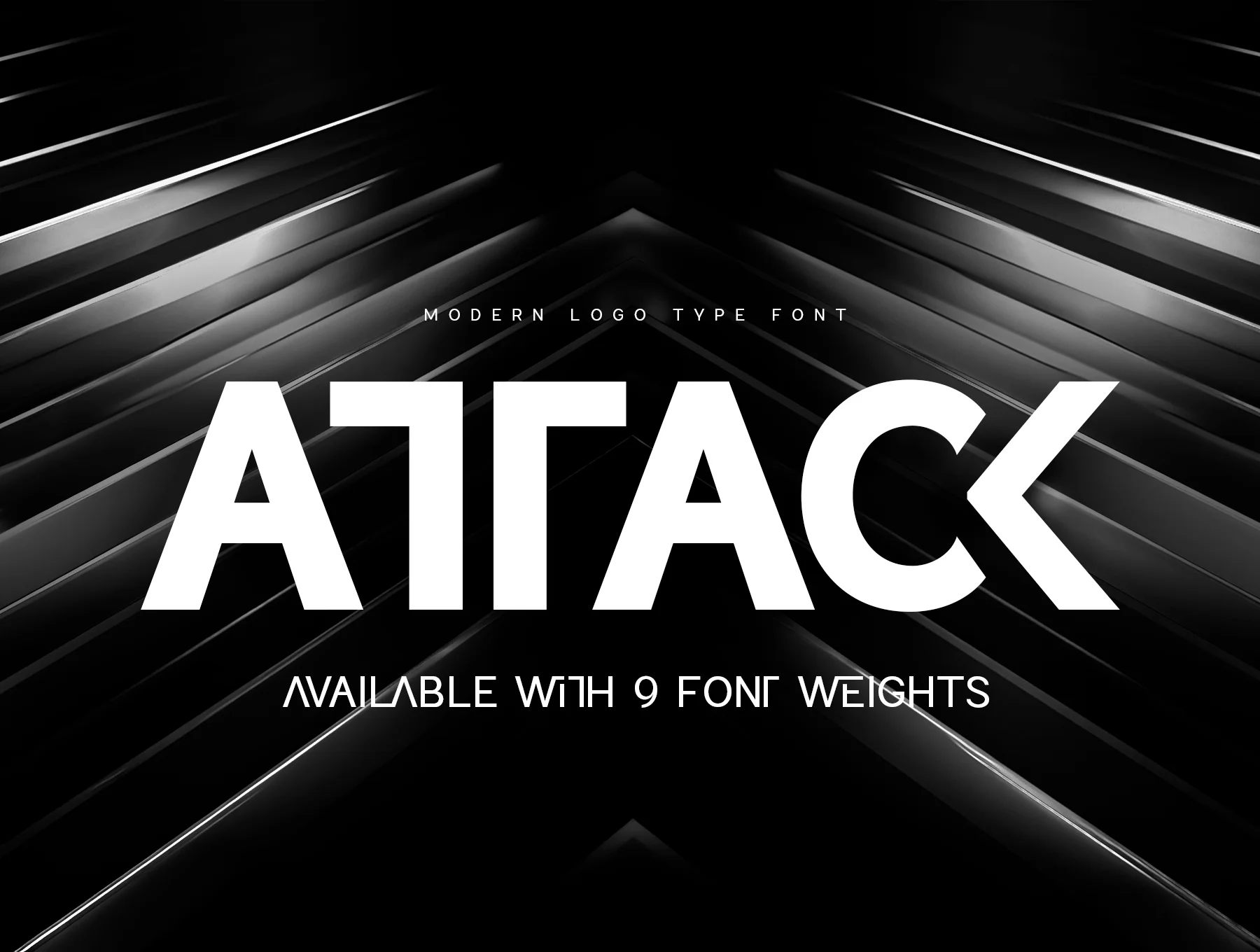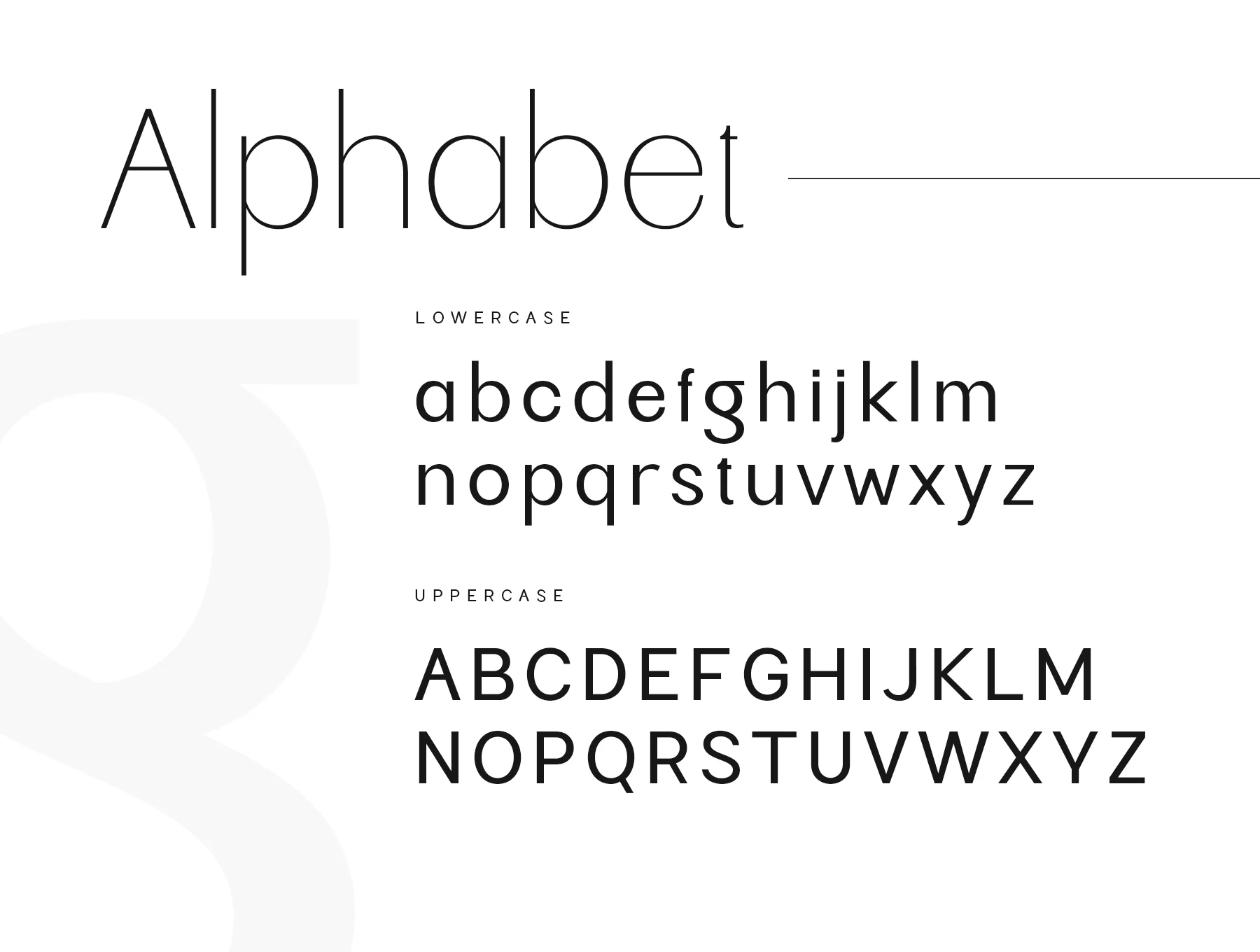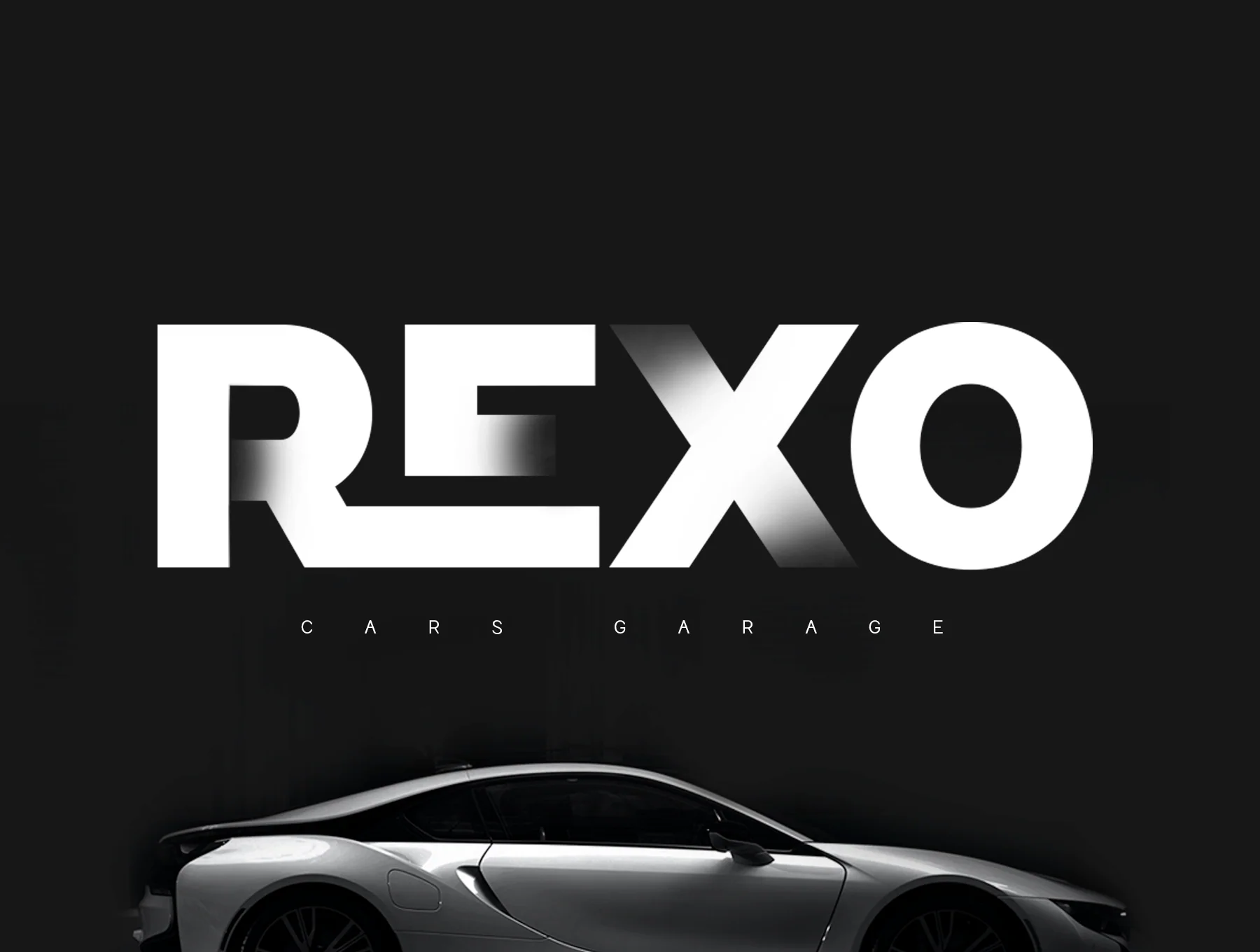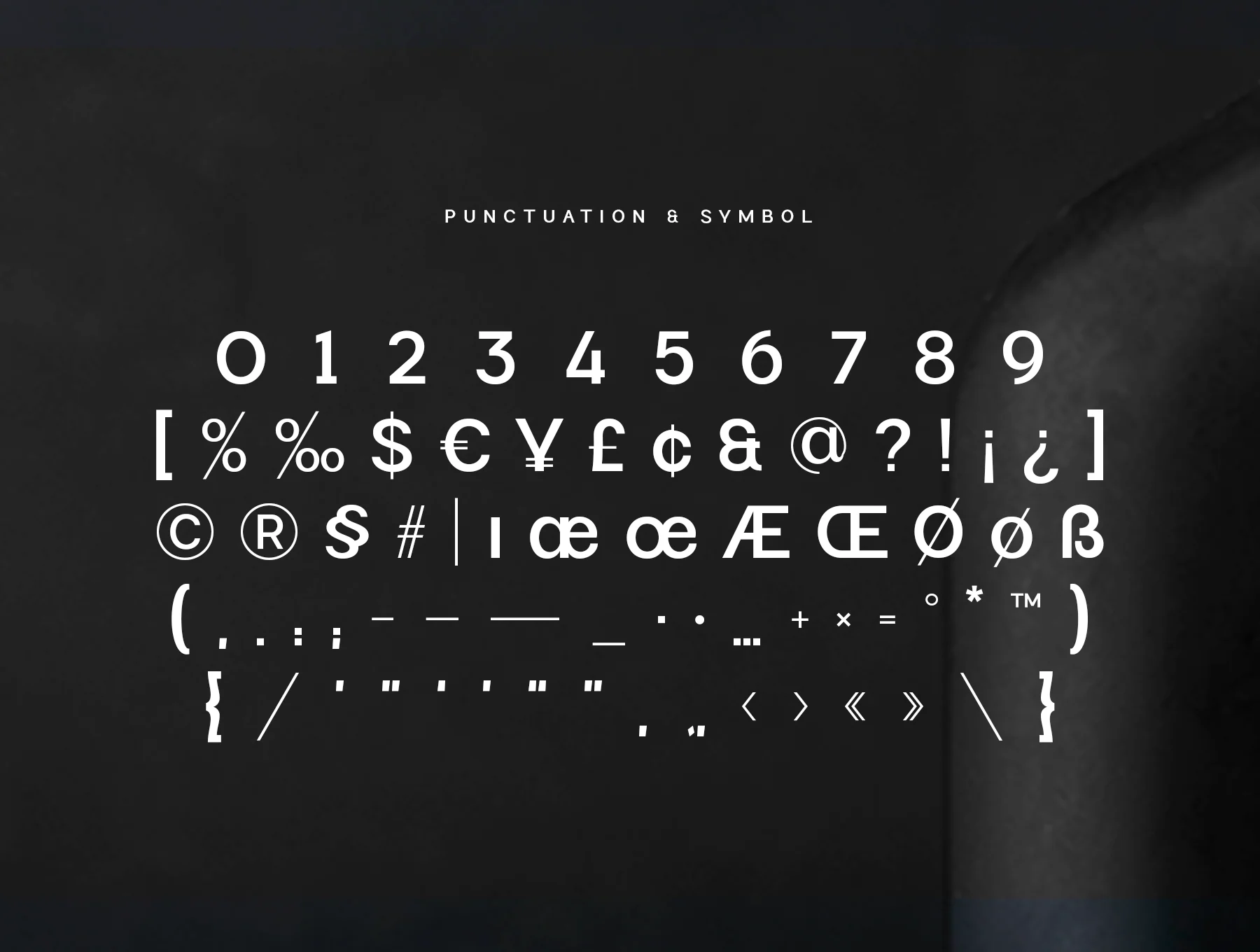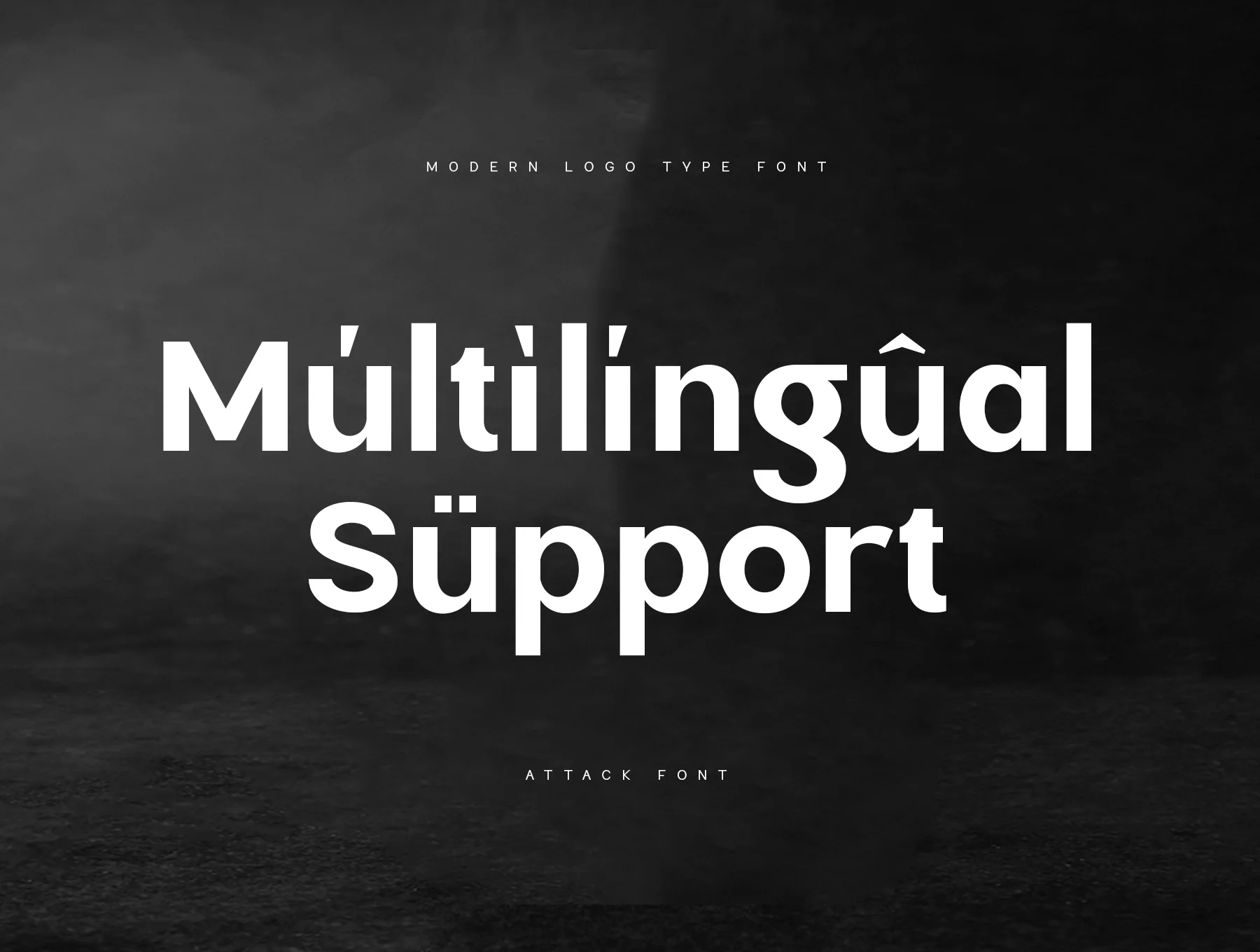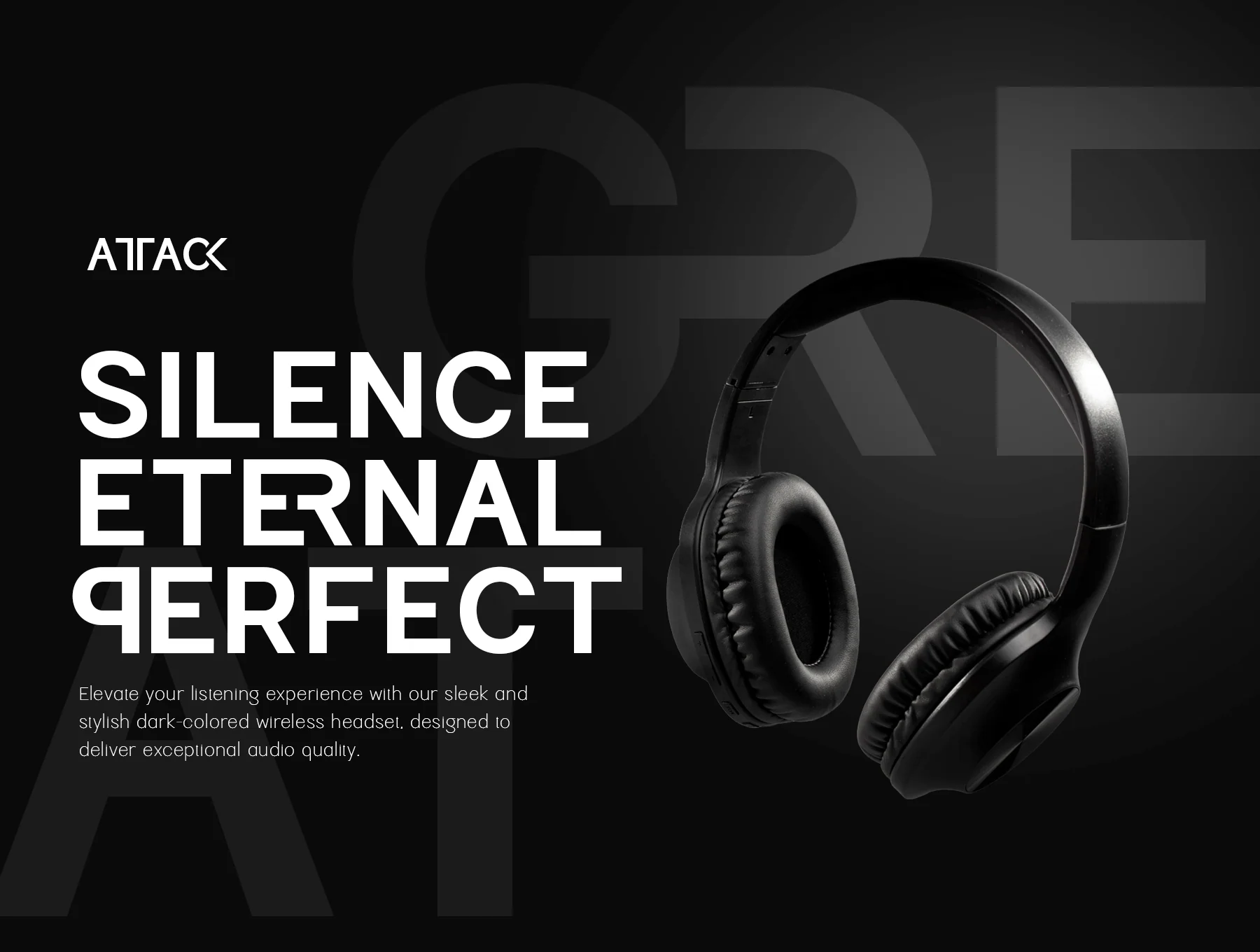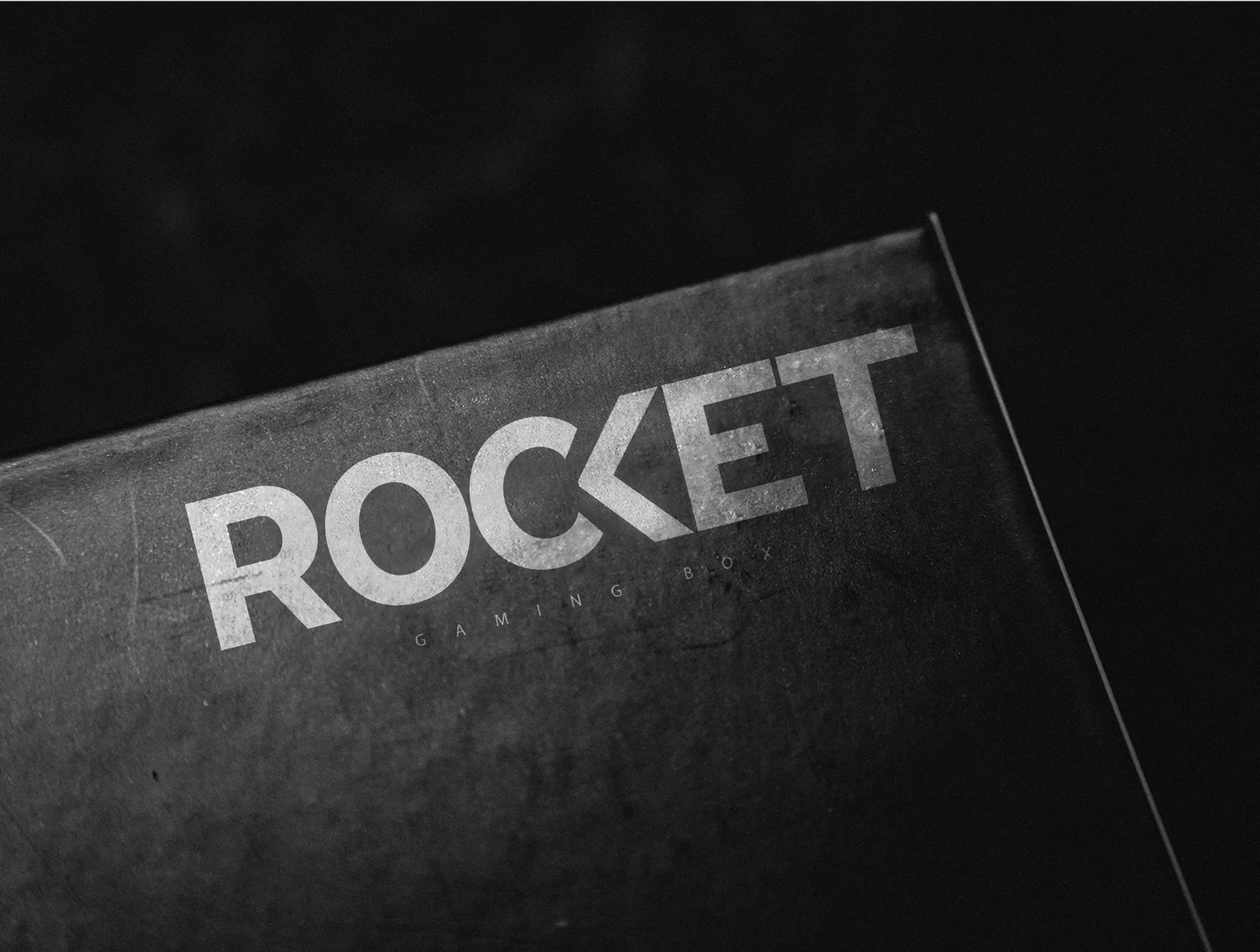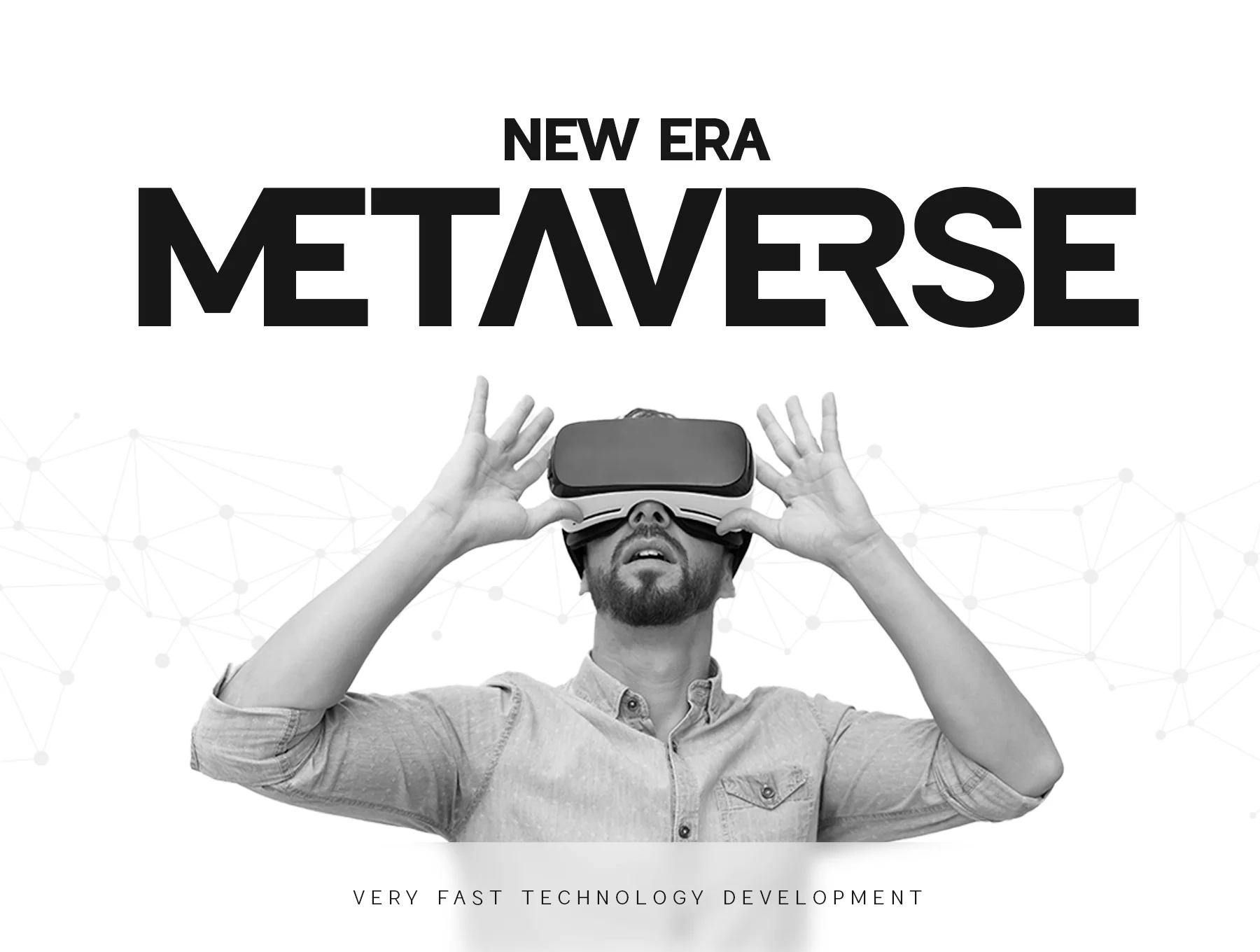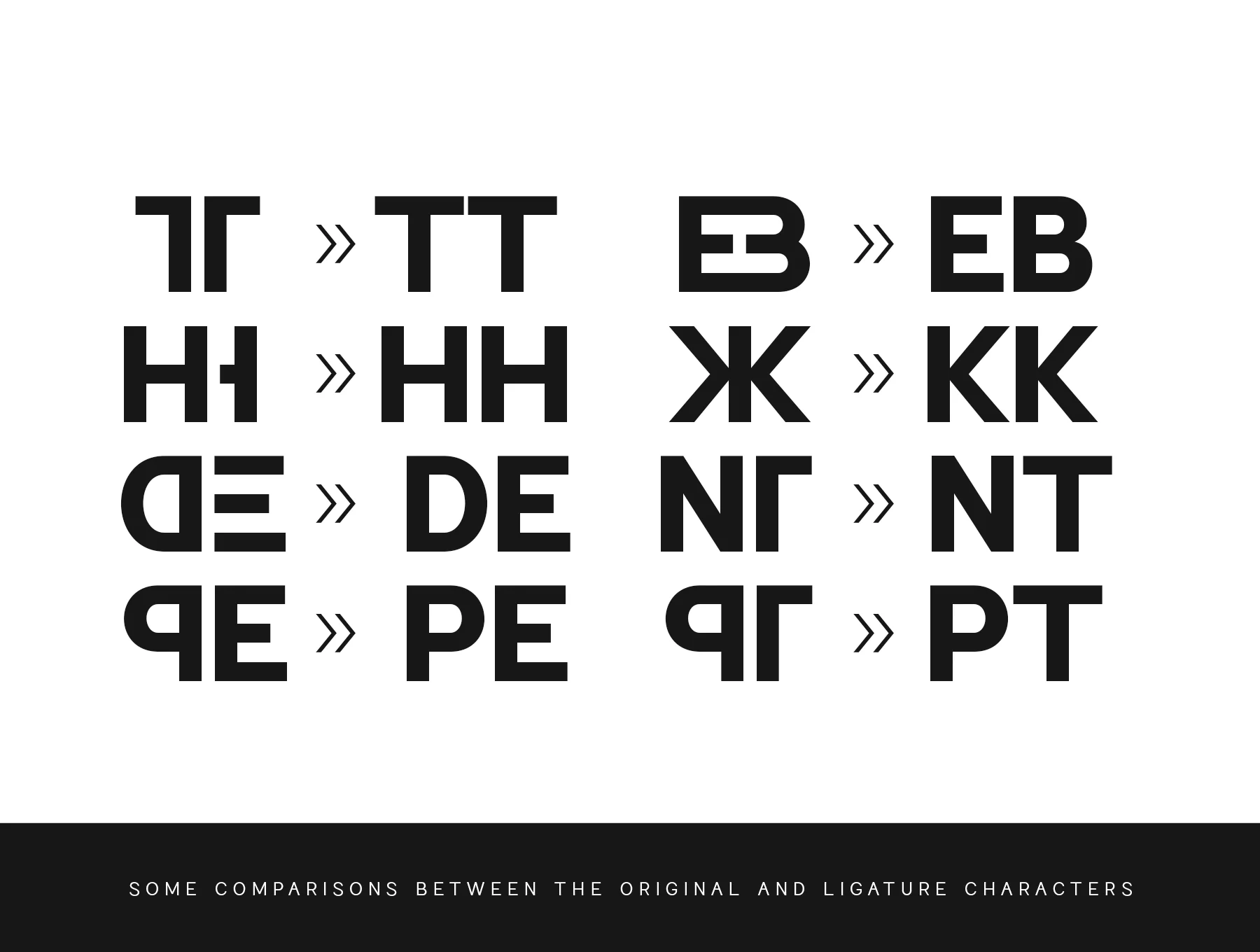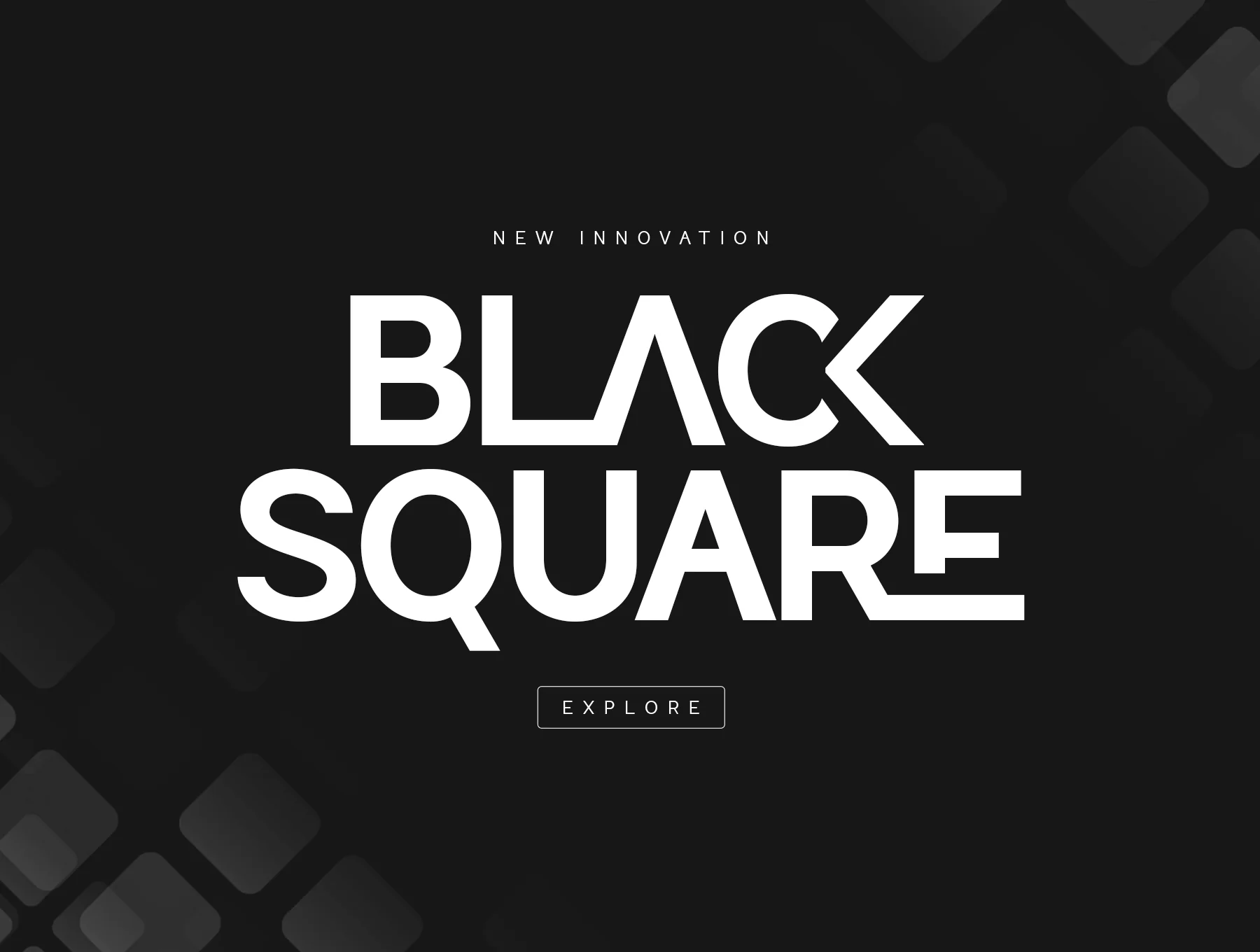
Attack - Corporate Logo Font
Attack is a sleek sans serif corporate logo font with balanced modern styling
Built-in ligature glyphs
A-Z letter coverage
Numbers and punctuation included
Attack is a balanced modern sans serif with a clean minimalist look, distinctive character, and strong logo-ready style. Use its ligatures to quickly create varied shapes and custom compositions. Ideal for branding, logos, posters, social posts, ads, packaging, labels, product design, photography watermarks, invitations, stationery, and more, with excellent readability. Best used in Illustrator or Photoshop.